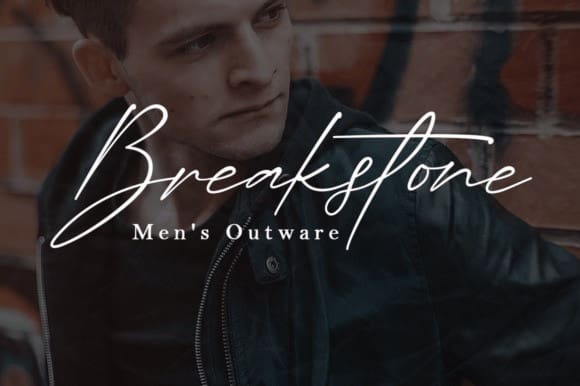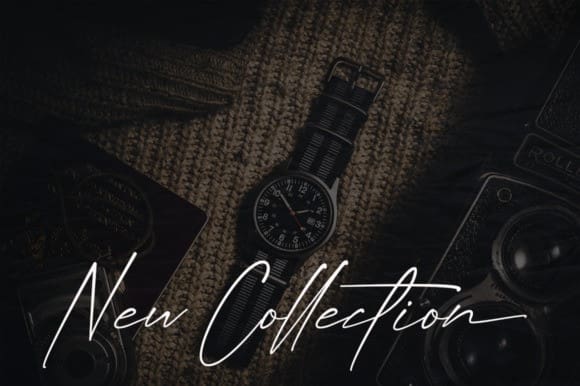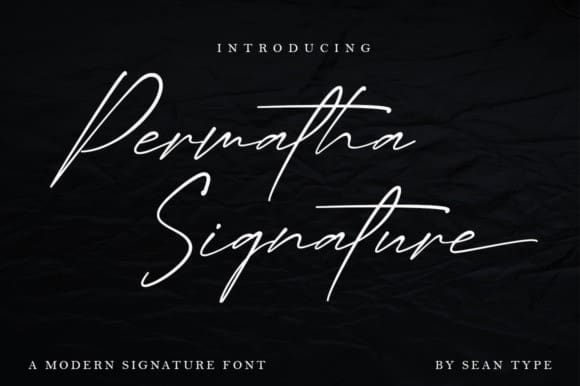
Permatha Signature Font
Permatha Signature Font, This font is perfect for branding designs for fashion or beauty photography. Permatha Signature is a versatile font that can be used for body, text and headlines. It’s simple and elegant style makes it perfect for designs that aim to create a luxurious and refined feel.
This font is PUA encoded which means you can easily access all glyphs and ligatures!